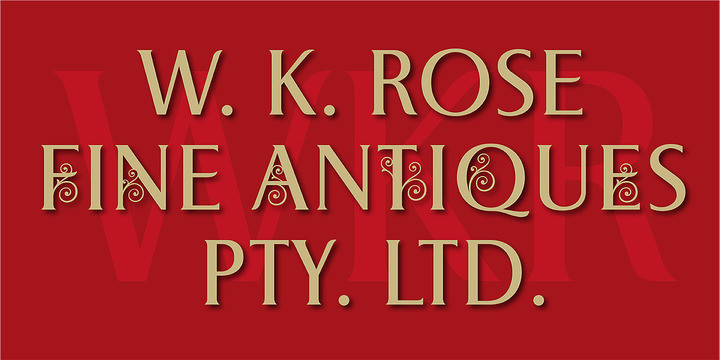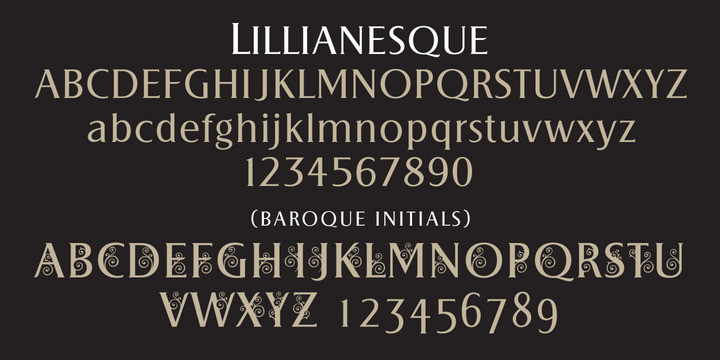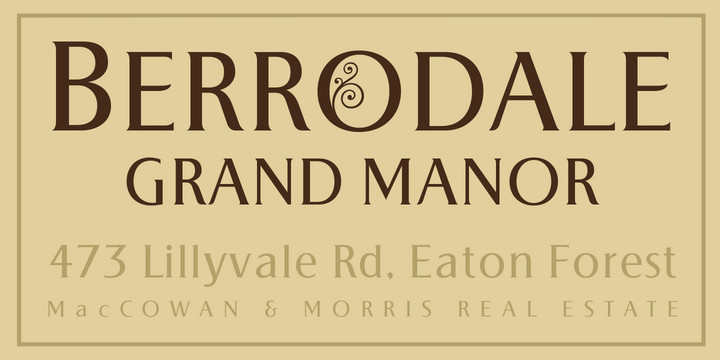
Lillianesque Font
A new romantic serif typeface with Baroque initial caps that can be incorporated to complement the standard set or be set together. Inspired by European architecture of the seventeenth century, the decorative initials fit comfortably with today’s illustrative typographic trends. The standard set offers classic tradition with contemporary touches that can stand alone in display or text sizes.